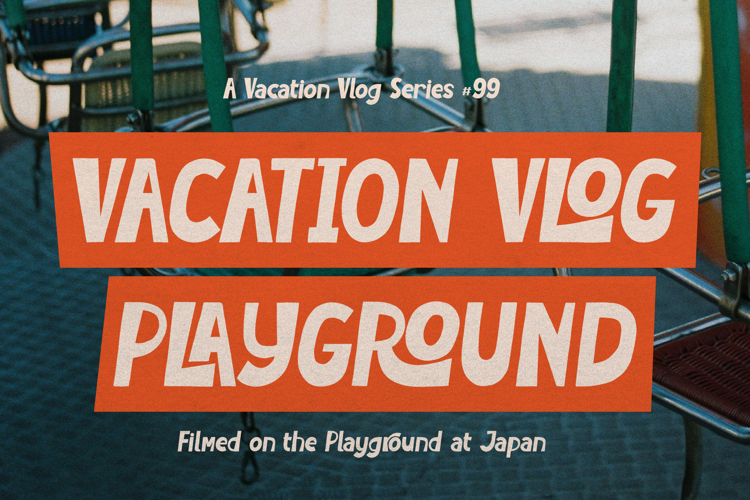
Praduga Font
Praduga | Display Hand Drawn, is suitable for any projects such as: logos, branding projects, homeware designs, product packaging, mugs, quotes, posters, shopping bags, t-shirts, book covers, name card, invitation cards, greeting cards, label, photography, watermark, special events, and all your other lovely projects that need a Hand Drawn taste.